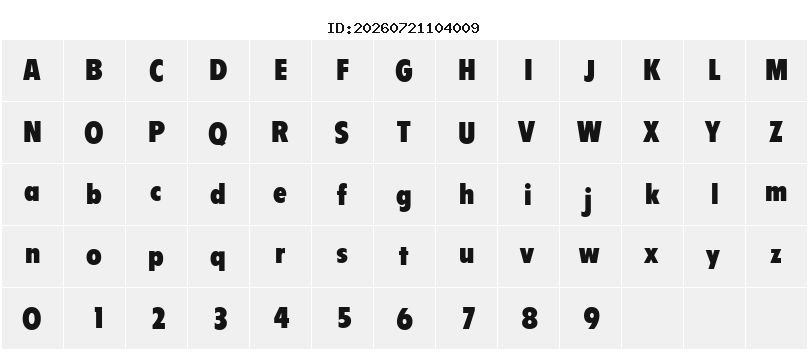
• Font Name: Flipper-Cd
• Designer: SoftMaker Software GmbH
About Flipper-Cd.ttf
Flipper-Cd.ttf is a modern, elegant sans-serif font designed for ultimate readability and visual harmony. Perfect for branding, headlines, web design, and print materials.